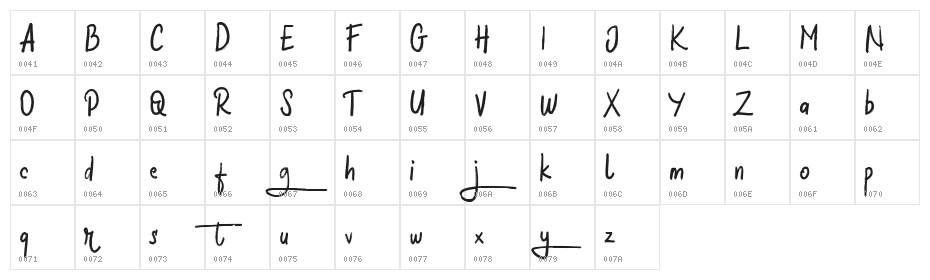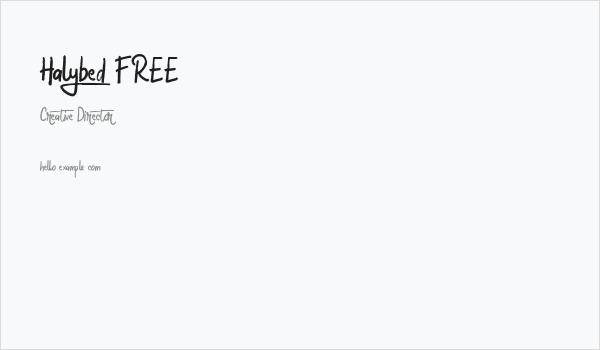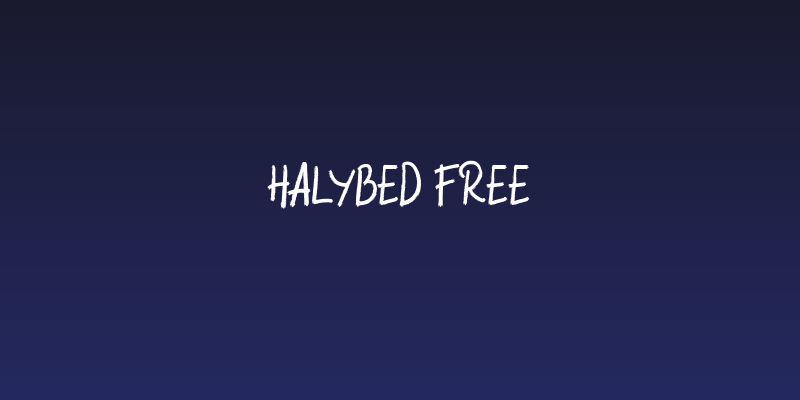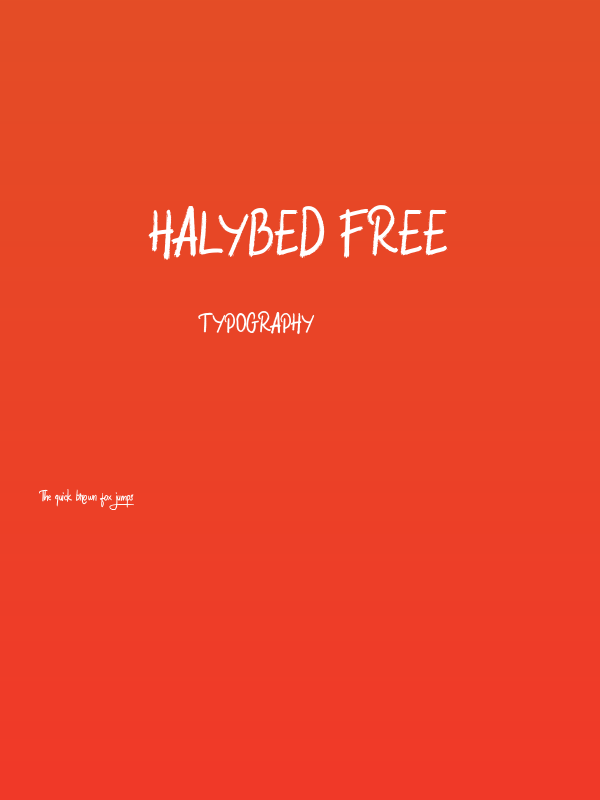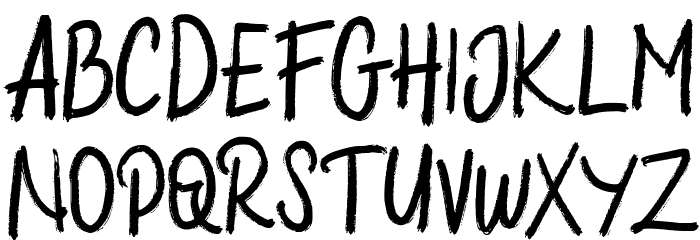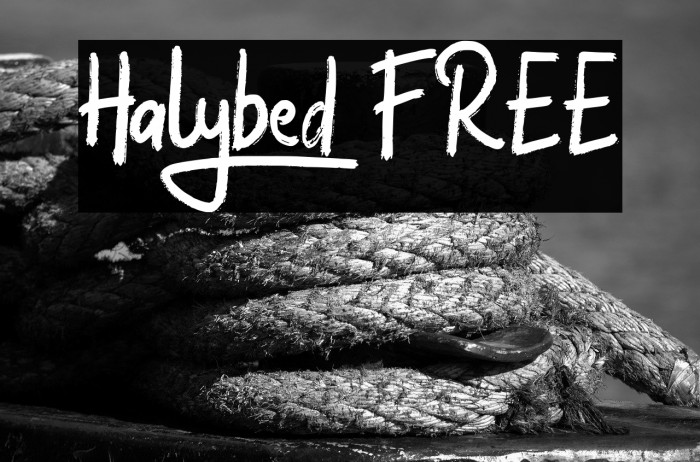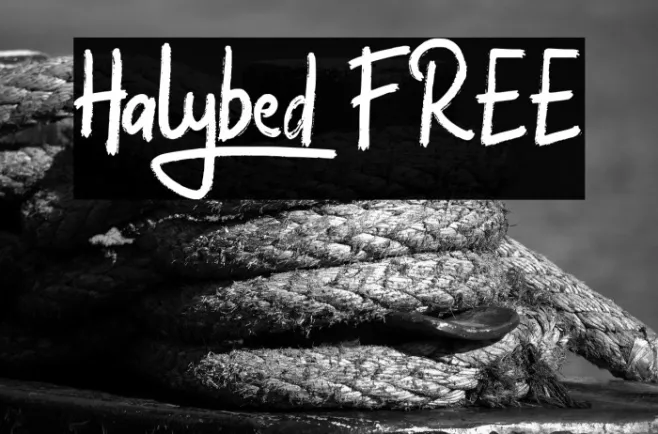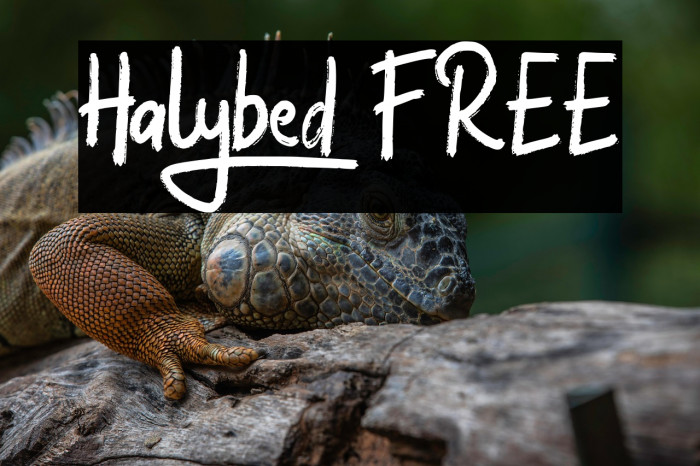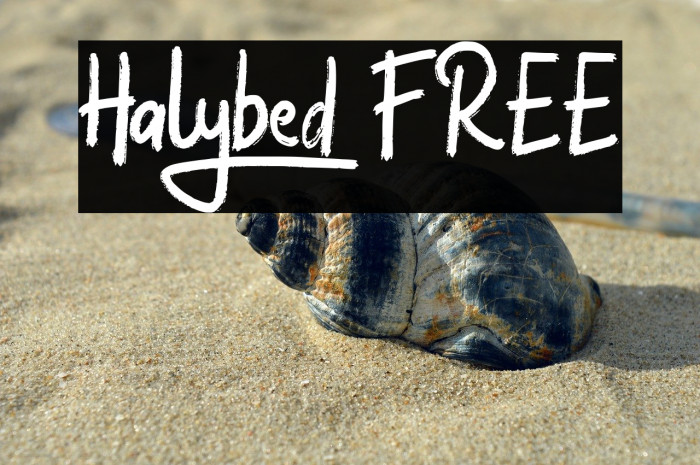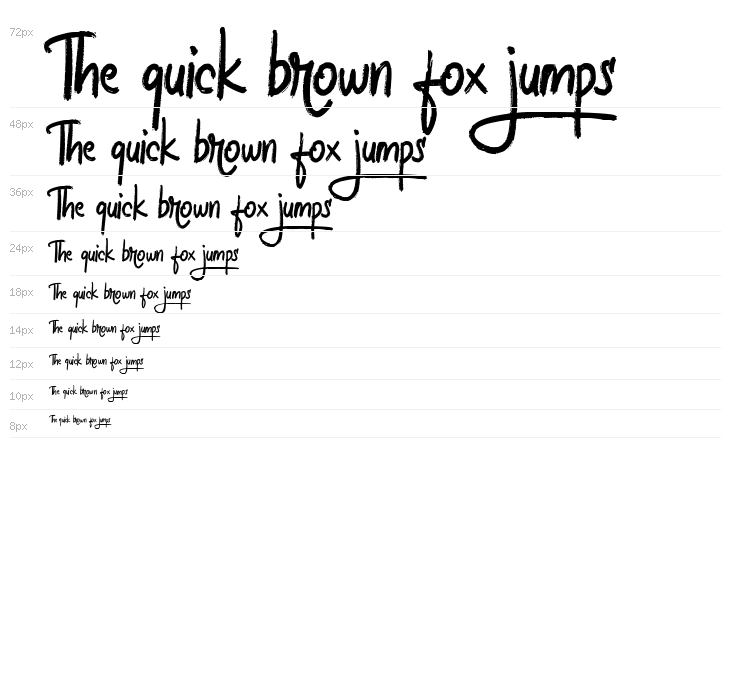
Halybed FREE Font
Halybed FREE Description
This font exhibits a bold, handwritten style with a dynamic and energetic appearance. The characters are crafted with a brush-like texture, giving them a raw and expressive feel. The uppercase letters are tall and slightly narrow, while the lowercase letters maintain a consistent flow with a slightly slanted orientation. The numbers and special characters follow the same lively and informal design, making the font suitable for creative and artistic projects. The overall impression is one of spontaneity and creativity, ideal for capturing attention and conveying a sense of individuality.